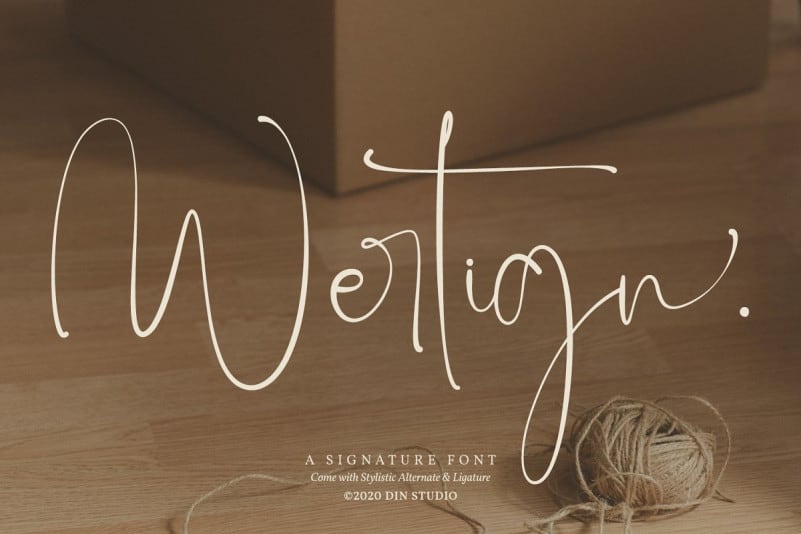
Wertign Font
Wertign Script Font is an Beauty and Minimalist font with beautiful ligature, character specials and multilingual support. This is a very versatile font that works well in large and small sizes. This handmade font typeface with elegant style looks very interesting for loads of different projects and promotions. It is perfect to be used on your website, for your social media branding, Pinterest banners, printed products, and more!